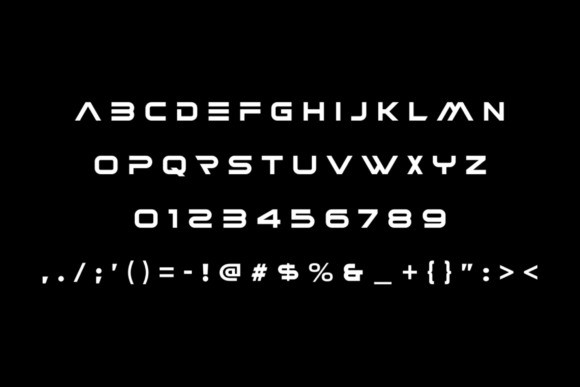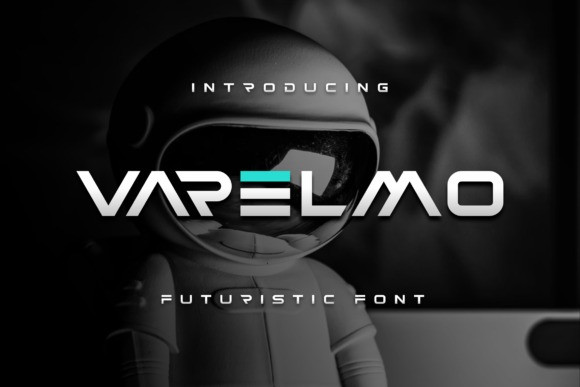
Varelmo Font
Varelmo Fontt  – Modern Font is a bold and authentic display font. The font is suitable for any branding project like logo, t-shirt printing, e-sport, and many more. outstanding in a wide range of contexts.